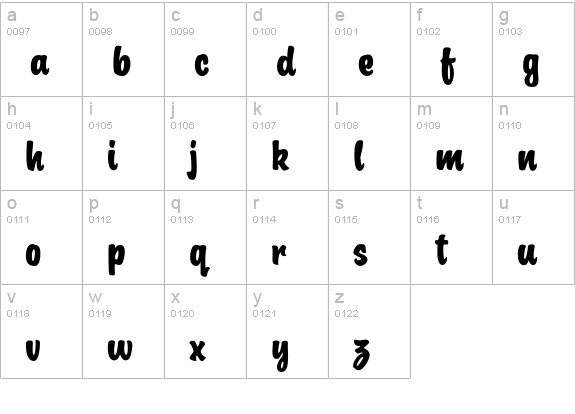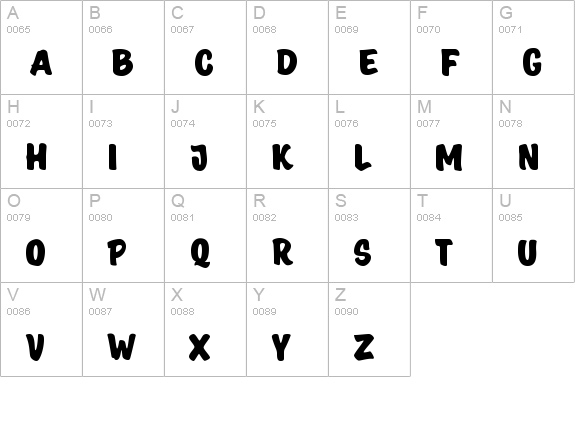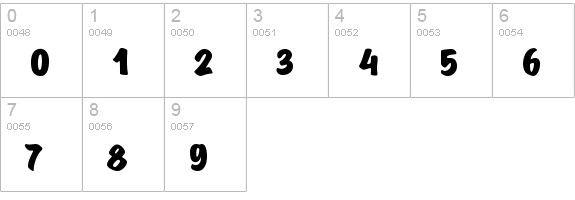
Signorita Normal Font Details
Signorita Normal is the standard, neutral variant in the Signorita typeface family \xE2\x80\x94 well suited to general body text, paragraphs, and standard typographic work.
Signorita Normal font is a stylish and elegant typeface that exudes sophistication and charm. With its sleek lines and graceful curves, this font is perfect for adding a touch of class to any design project. Whether you're creating invitations, logos, or branding materials, Signorita Normal font is sure to make a lasting impression. What's even better is that Signorita Normal font is available for free download at FontsMarket.com. Yes, you read that right - you can get this beautiful font completely free of charge and use it to elevate your designs to the next level. Don't miss out on this amazing opportunity to enhance your creative projects with the timeless elegance of Signorita Normal font. Download it today and let your creativity shine!